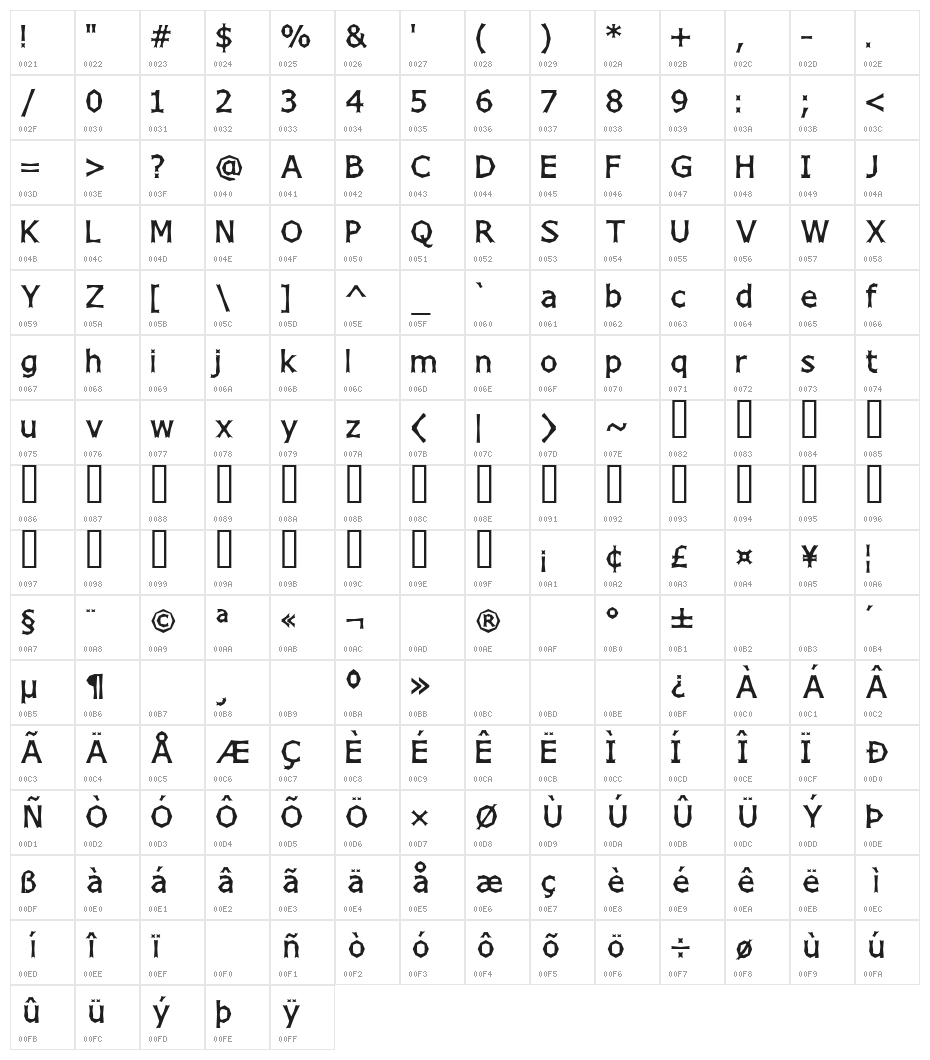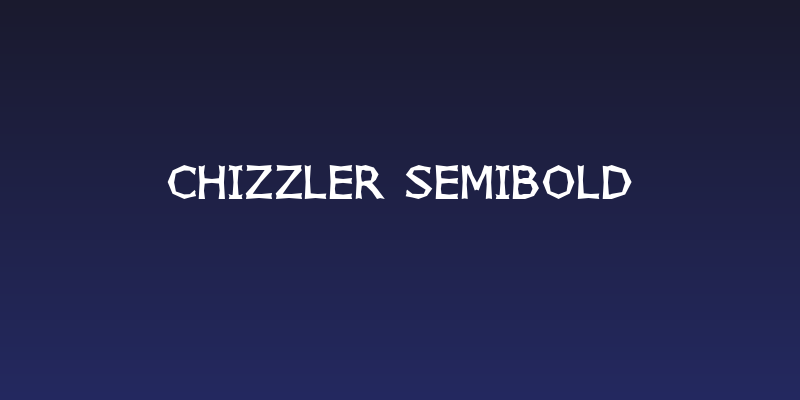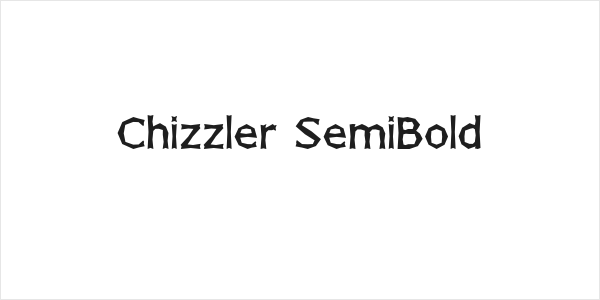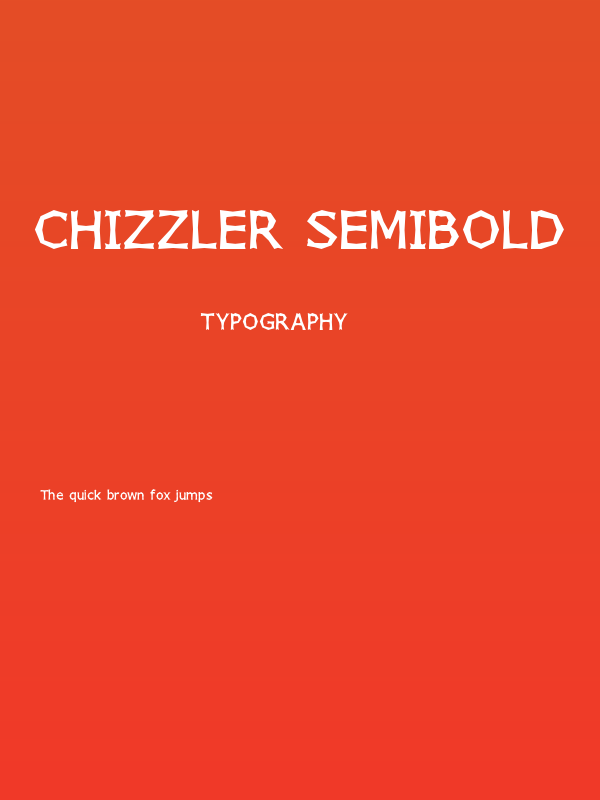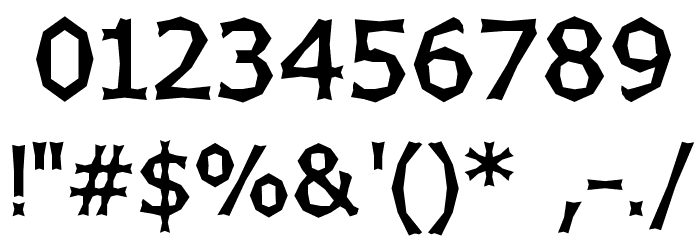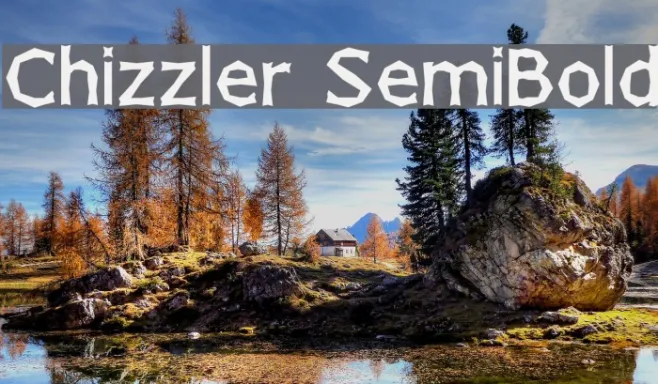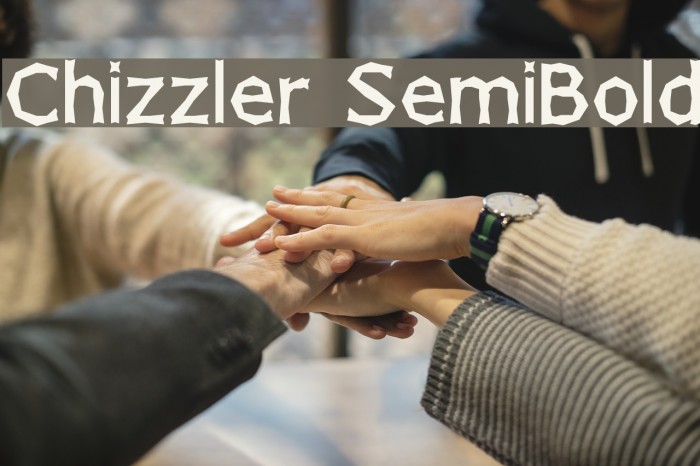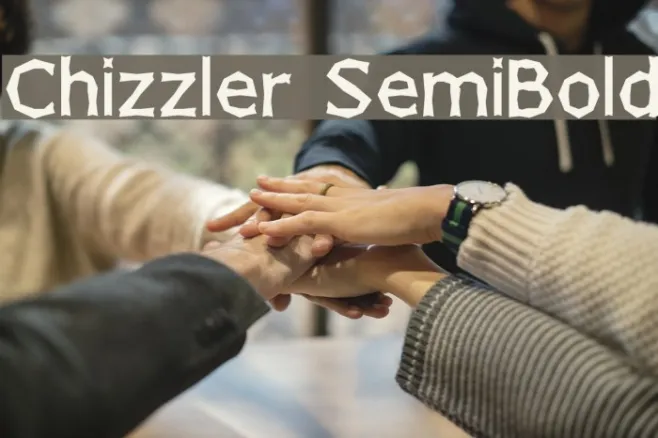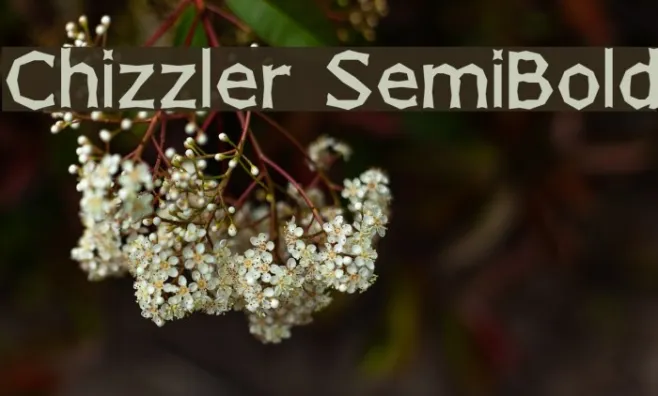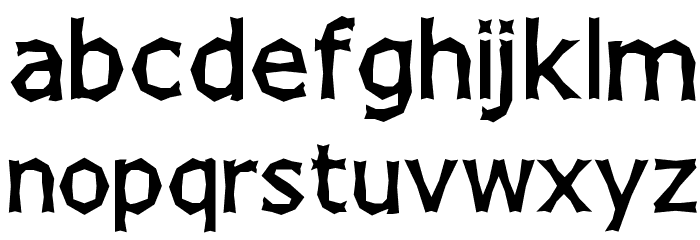
Chizzler SemiBold Font
Chizzler SemiBold Description
This font features a rugged and edgy design, characterized by its uneven and jagged edges, giving it a hand-chiseled appearance. The uppercase and lowercase letters maintain a consistent style, with sharp angles and irregular strokes that create a dynamic and bold look. The numerals and special characters follow the same aesthetic, ensuring a cohesive visual experience. This font is perfect for projects that require a raw and impactful style, such as posters, album covers, or branding for edgy or alternative products.
| Proposed Projects | Ideal for posters, album covers, edgy branding, and alternative product designs. |